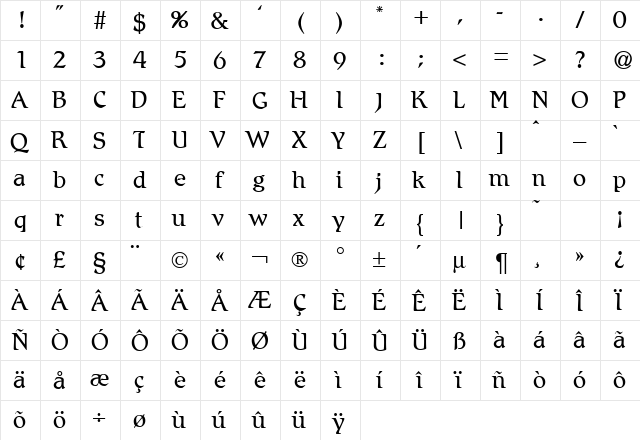
RomLightDB Normal Font Preview
RomLightDB Normal
Design Context for RomLightDB Typeface
RomLightDB is a composed and adaptable typeface that performs quietly and consistently across a wide range of design contexts. Its slender proportions lend an understated elegance to any composition.